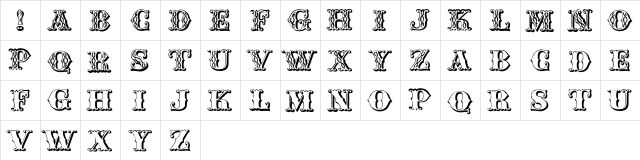
Chipperfield_and_Bailey normal
Design Context for Chipperfield_and_Bailey Typeface
Chipperfield_and_Bailey is a composed and adaptable typeface that performs quietly and consistently across a wide range of design contexts.